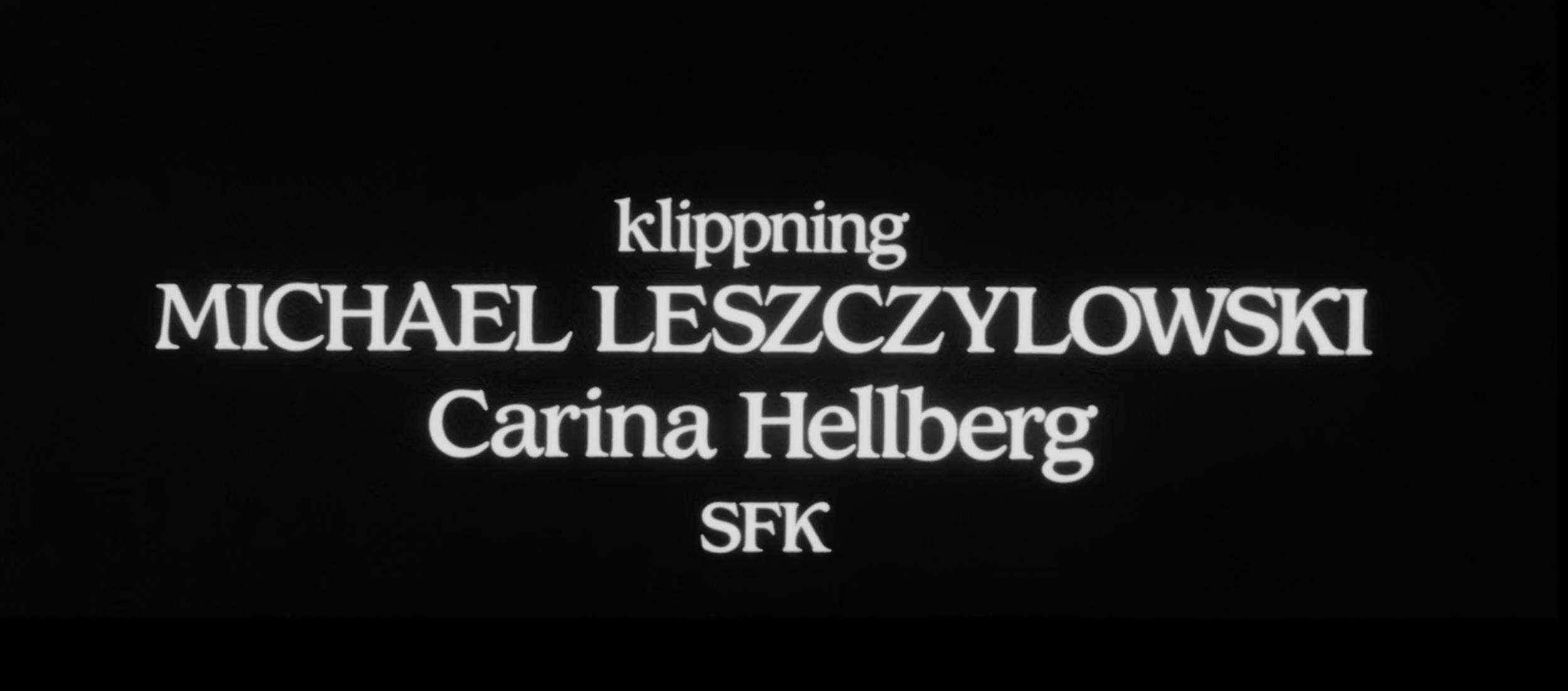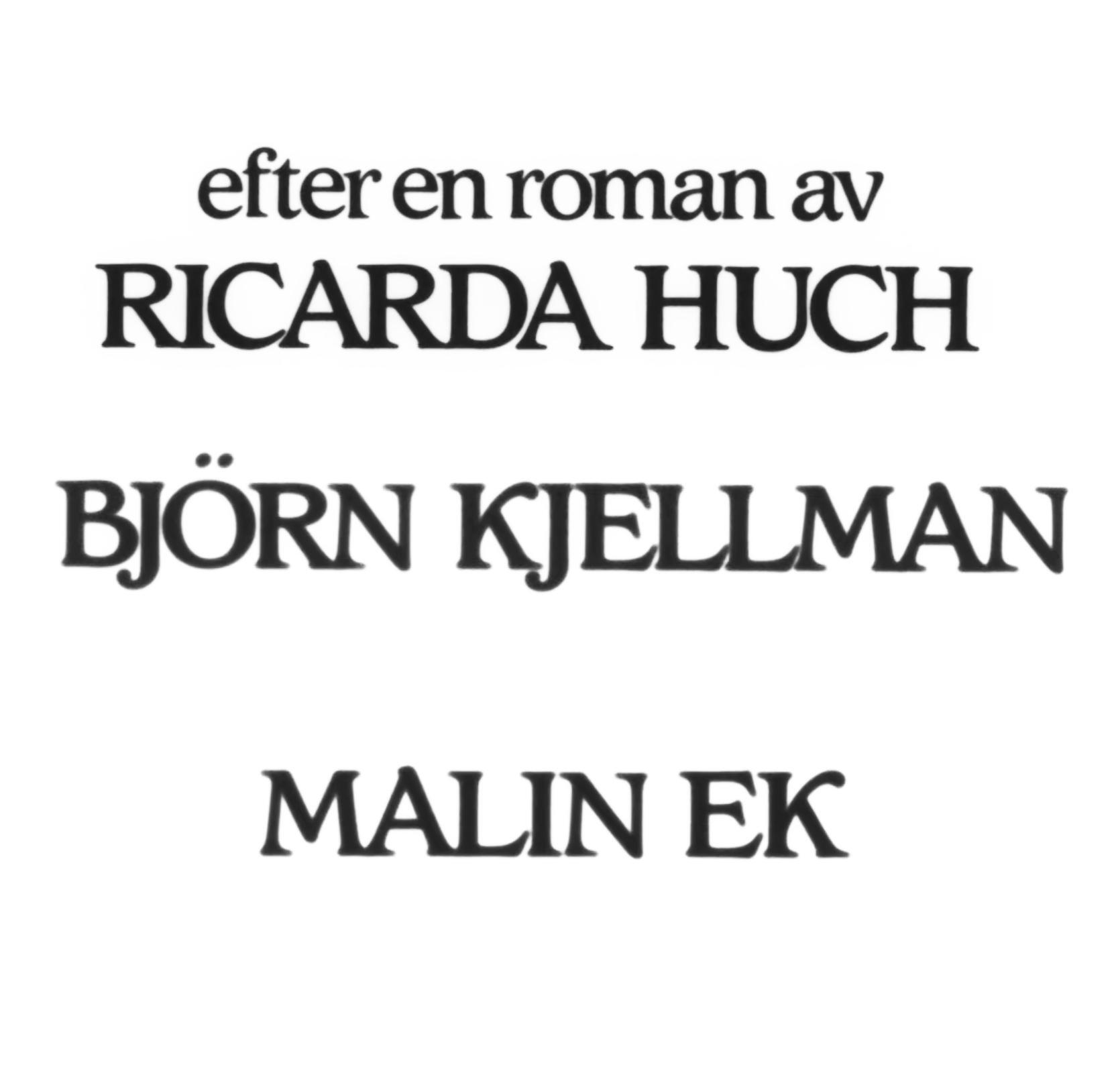
Looking to identify font used in title graphics for Swedish film "The Guardian Angel" (1990)
Hello, I've tried to find this font using various online tools, but haven't had any luck. Cooper Medium came pretty close, but isn't quite right.
The title sequence is actually white text on a black background but I inverted one image for clarity.
Tightly letterspaced serifs was a big thing in Sweden during the 80-90s, usually Garamond unfortunately, but this one works pretty good I think. So I'm curious to find out if it exists in digital format.